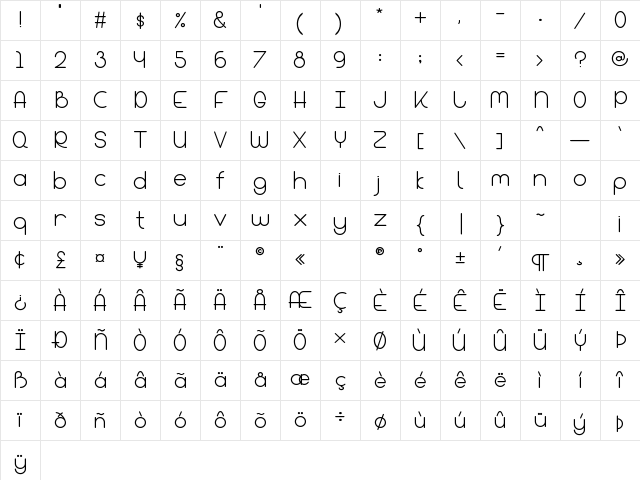
Bandar Regular Free Font
Bandar Regular
Designer: Afkari Studio KanaType
Design Context for Bandar
Bandar is a composed and adaptable typeface that performs quietly and consistently across a wide range of design contexts.